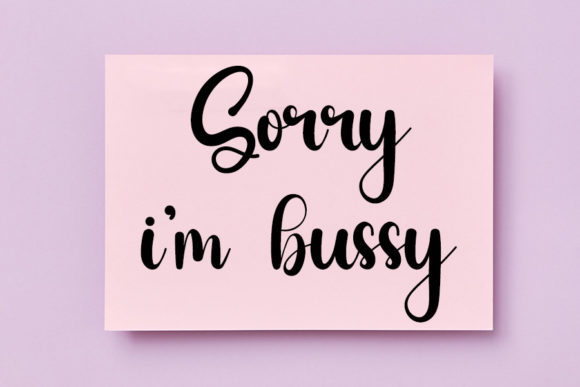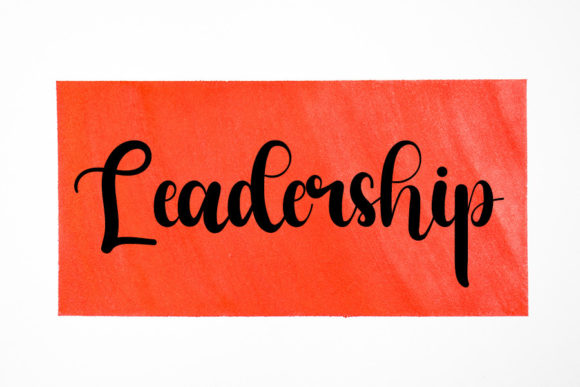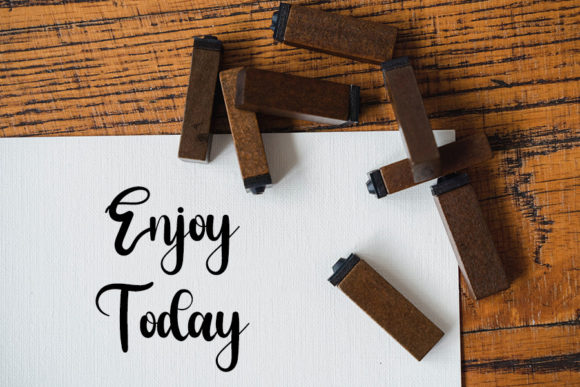
Introduction to Simple Samantha Font
Simple Samantha is a lovely handwritten font that will make your work stand out through its elegant and curvy lines.
It is perfect for product packaging, branding project, magazine covers, social media, weddings, or just used to express words above the background .
Simple Samantha Font offers exceptional quality and versatility, making it a valuable addition to your design toolkit. Whether you’re creating for personal projects or commercial use, Simple Samantha Font delivers professional results.